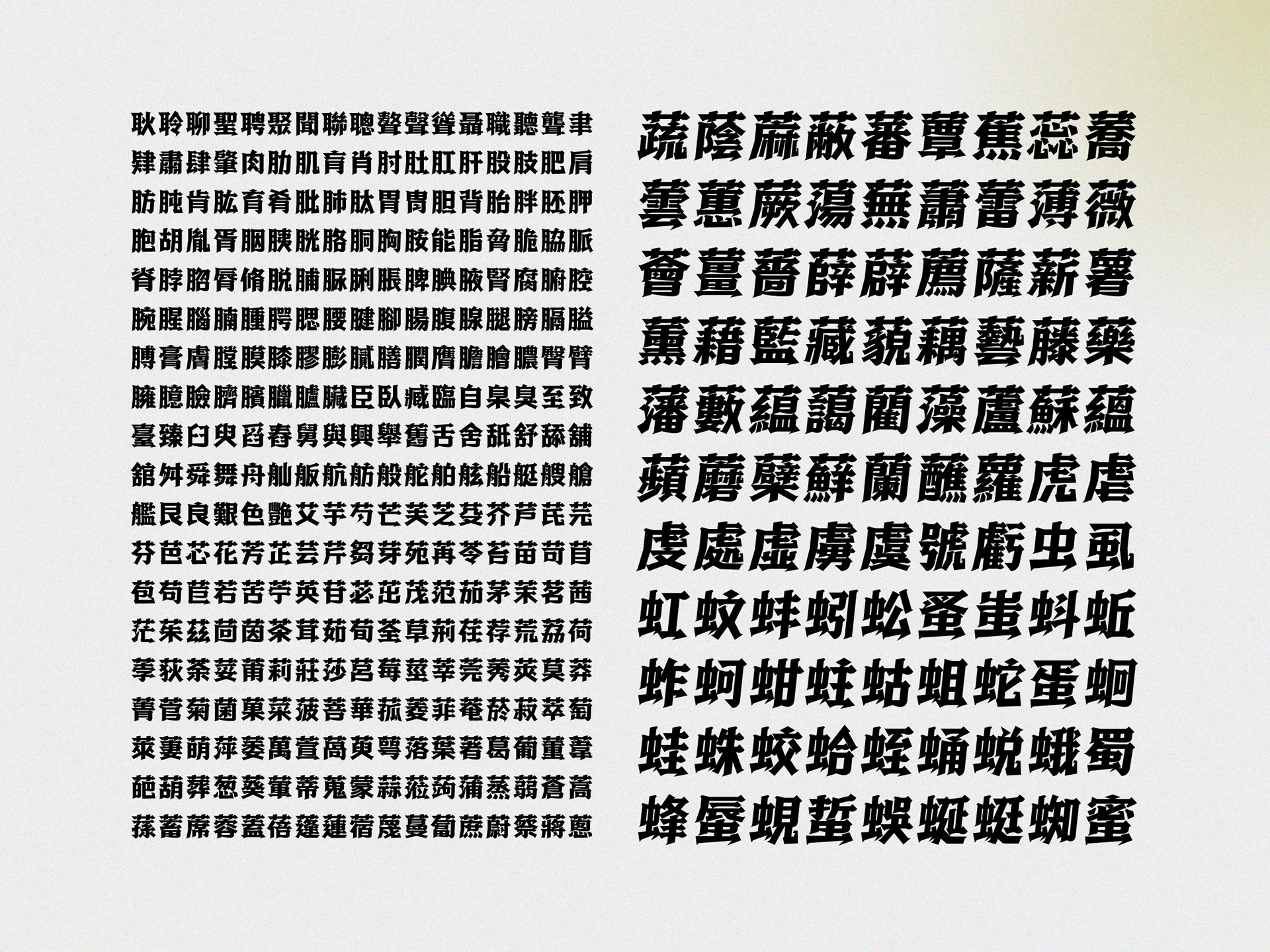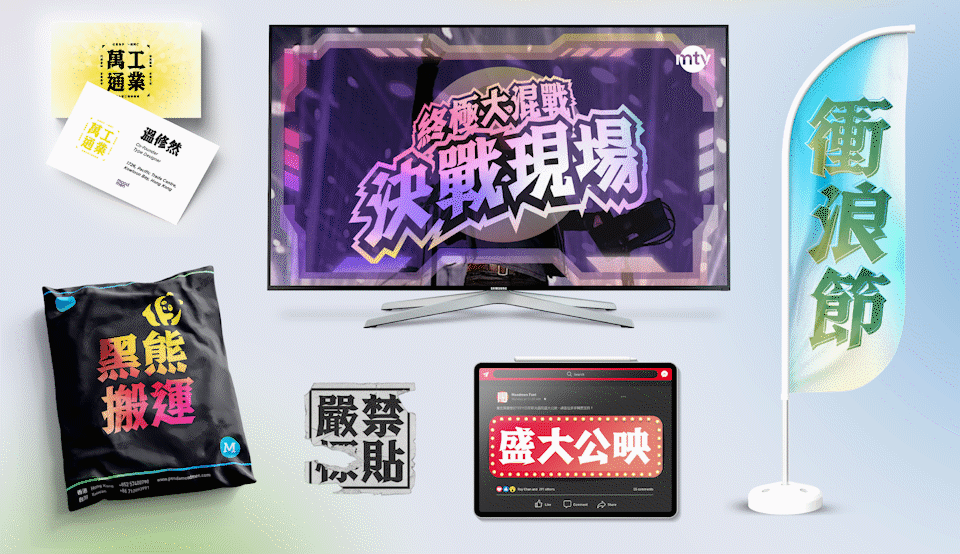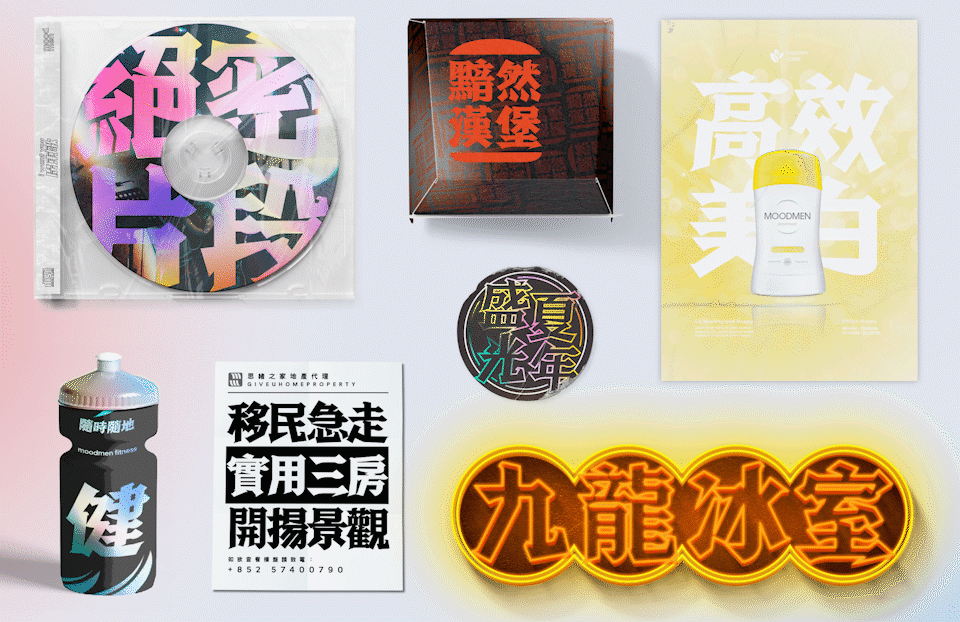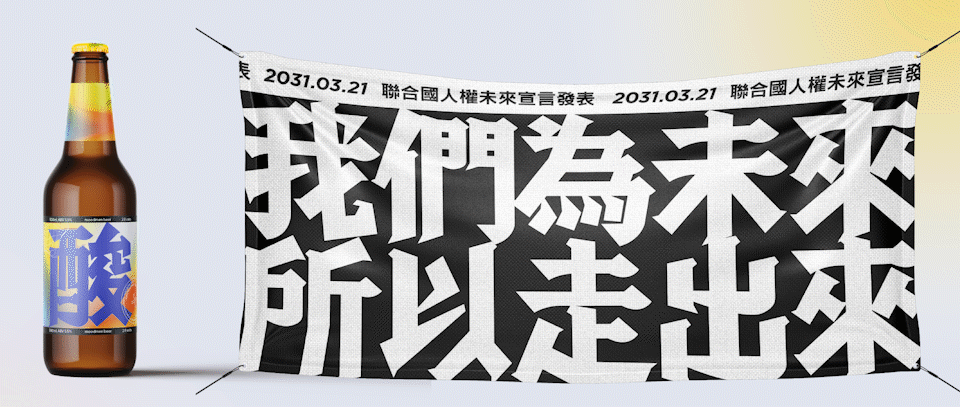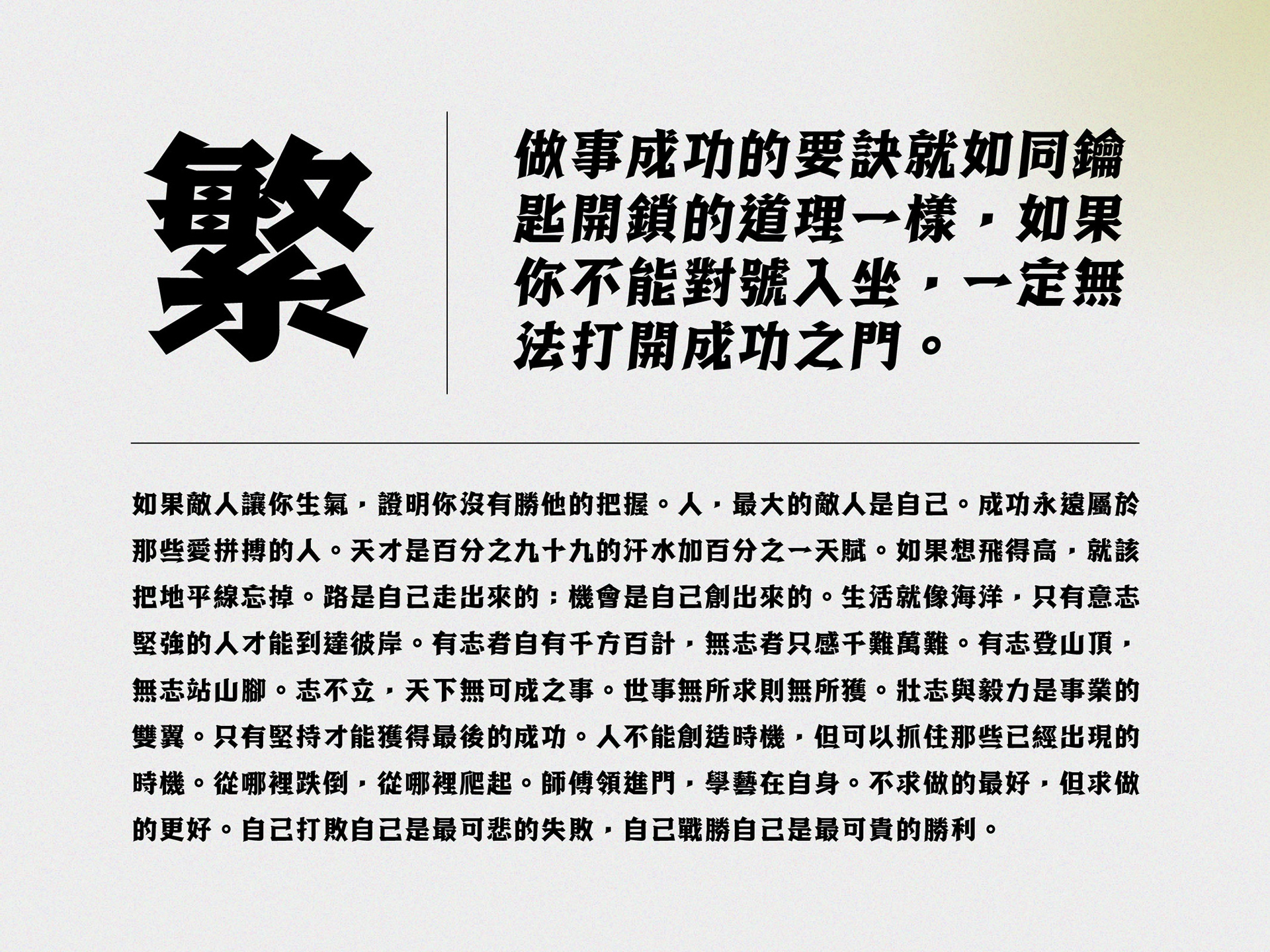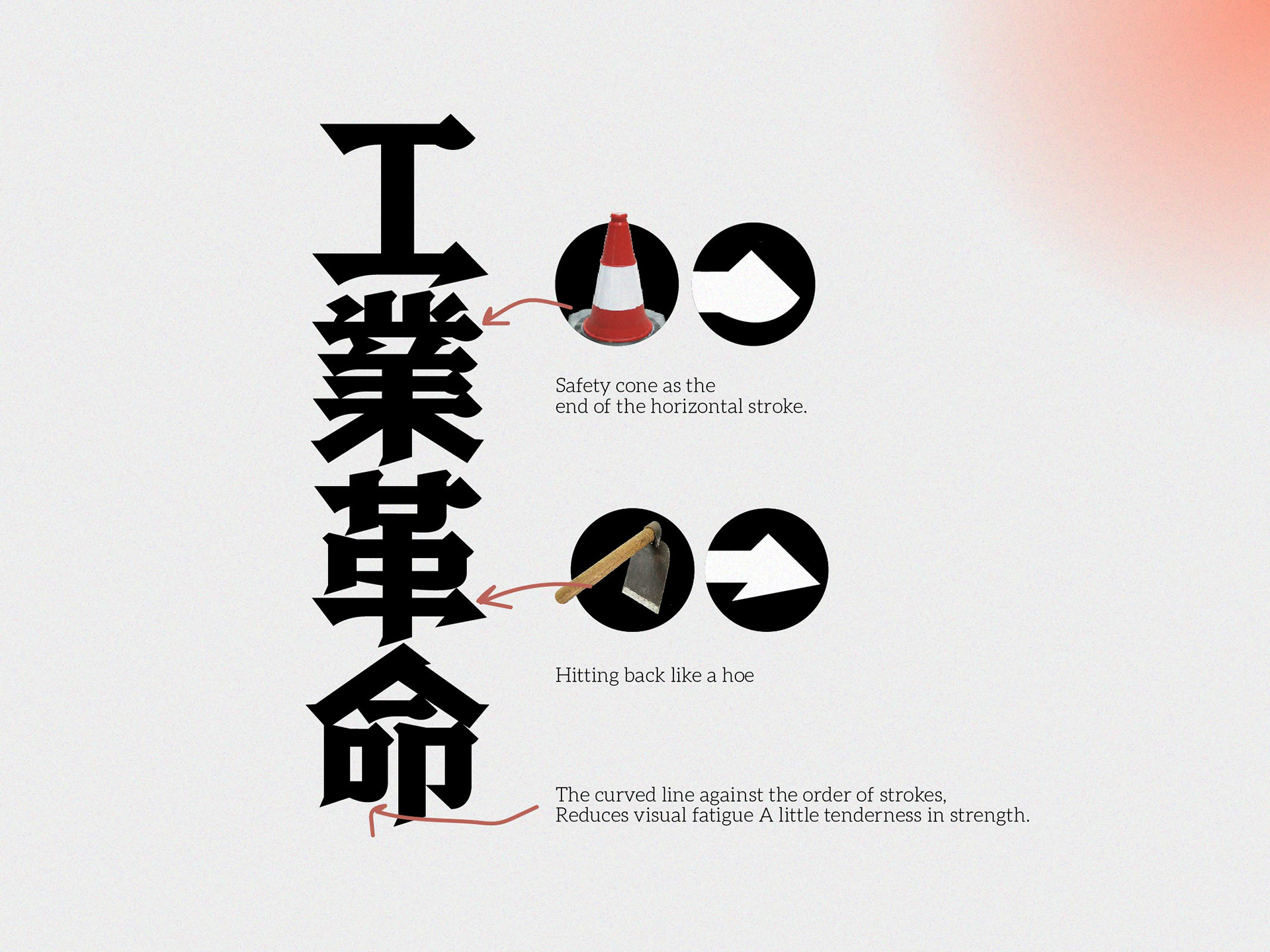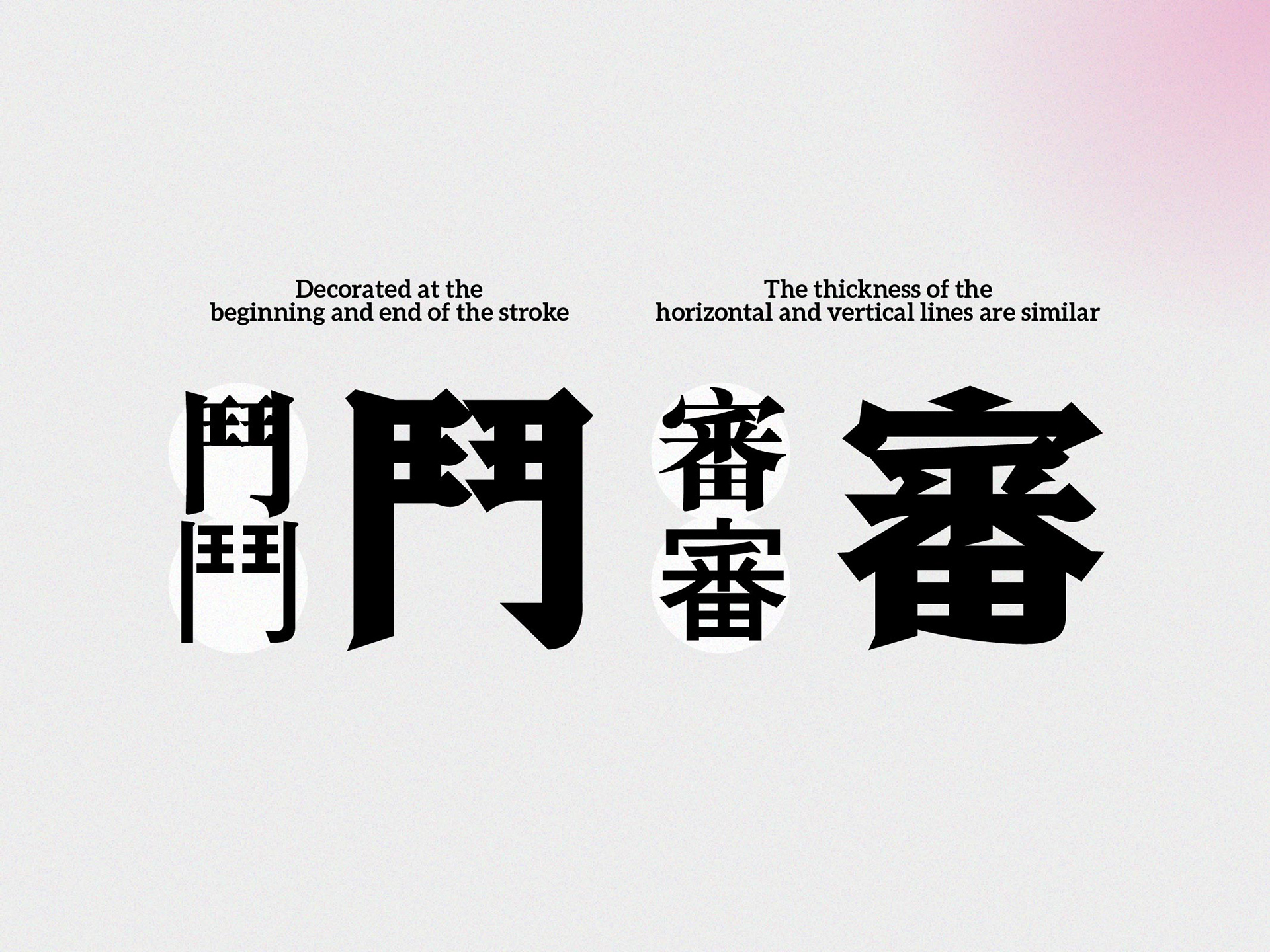
In the evershifting tides of time, every individual and object appear entangled in the eternal struggle between memory and oblivion. It seems a natural decree of society that relics are cast aside, yet in today's trendy retro realm, who can fully deny their significance?
The allure of antiquity lies within its aged charisma, a unique allure cultivated through the passage of time. It not only fosters our affection and familiarity with our surroundings but also breathes vitality into the urban landscape. Culture serves as the nourishing soil that enriches an entire metropolis, and it's precisely these diverse elements that contribute to the profound essence of a city's true civilization.
It is not only the memories of Hong Kong people, but also the important role that gives the city its personality and value. Hand-carved sparrows, theatre tents, dim sum carts... How many of these once-familiar things can you count? And how many of them have blurred in your mind? Conservation is important, but it is not enough to simply preserve these cultures, which are bound to be lost one day. It is precisely because they do not want to be lost that some of Hong Kong's declining traditional industries are trying to use old things as their base, retaining their original foundations while injecting new elements into them, so that they can continue to exist, both in body and soul.
In that case, should Hong Kong's writing be passed on? If no one continues to make words, will it become the next target of elimination in society?
Born in a complex and ever-changing era, we have to face different variables every day, and some precious and beautiful things around us are disappearing one by one. We seem to have become numb to this so-called normality and have even begun to accept it silently. Some people say that all good things in the world have an expiry date, but we are not willing to lose them, and we hope that we can bring back the soul of Hong Kong by adding some of our unique humanistic features through our font design.
The wisdom of Wing Chun is to be able to be strong and soft, complementing each other and getting the best out of each other; the sharpness of the razor at the Shanghai barber's shop is a sign of self-affirmation; the versatility and might of the lion dance is a sign of grandeur; and the fineness of the hand-sculpted sparrow demonstrates the master's dedication to the industry and his passion for it. Although these traditional industries are on the verge of elimination, they still hold fast to their positions and maintain their professionalism. If the Reborn Font can incorporate their elements and combine Song and Hei, I believe this will be a set of traditional Chinese characters that can continue the soul of Hong Kong.
In terms of design, Reborn Font is powerful and delicate, striving to strike a balance between artistry and readability. Whether it is used as a copy headline, signage design, product packaging or even posting notices, Reborn Font can fully demonstrate its unique character, which not only exerts tension on the content of the text, but also breaks the impression of traditional fonts as being dull and boring. Especially in the information-rich modern city, an eye-catching and unique headline font is needed to retain people's attention and keep them interested in reading the content.
In addition to innovating in terms of trends, Reborn Font also hopes to pass on cultural heritage through the combination of Song and Black styles. The history of Song Style (Ming Style) can be traced back to the ancient times of movable-type printing. With its bold vertical strokes and iconic triangular decorations to facilitate engraving, Song Style is definitely a representative of traditional aesthetics. On the other hand, bold is a sans-serif typeface derived from the influence of Western fonts, which is highly malleable and contemporary because of its consistency in thickness, simplicity and clarity of strokes.
Reborn Font retains the decorative head and tail of Song Font, but adds the hardness of Black Font and unifies the thickness of the horizontal and vertical strokes, thus achieving the fusion of Song and Black, the new and the old. This design not only makes the font more unique and outstanding, but also allows it to be used in a wide range of media and interfaces, responding to the needs of the times. In this way, Reborn Font is expected to meet the objective of "adding new elements to turn traditional aesthetics into trends", and pass on the inherent humanistic spirit to the next generation.